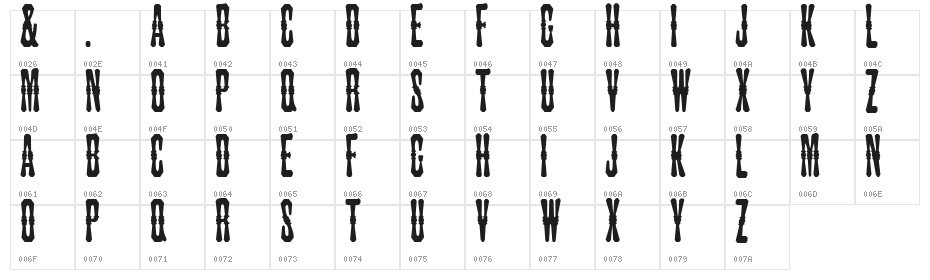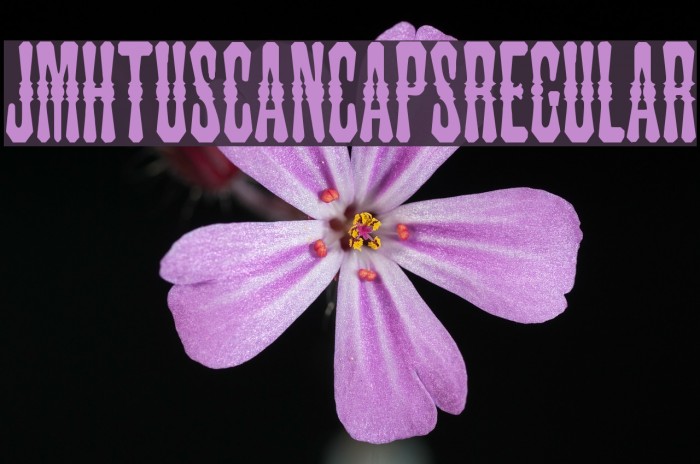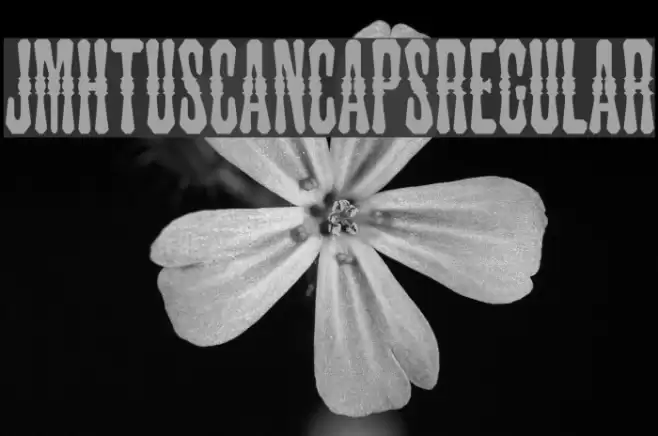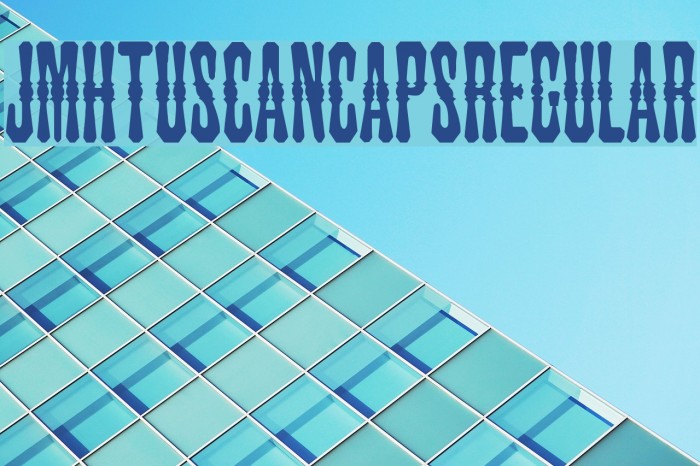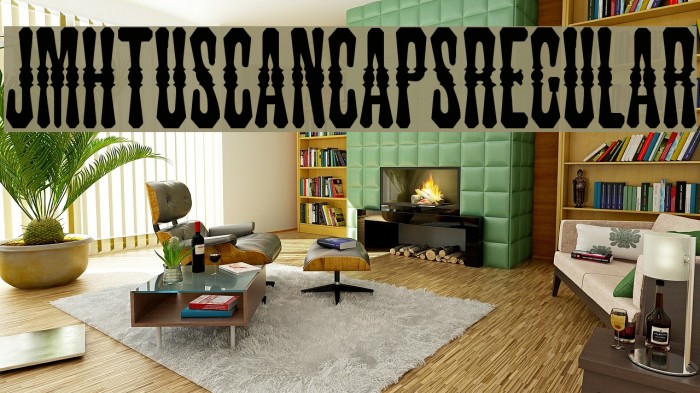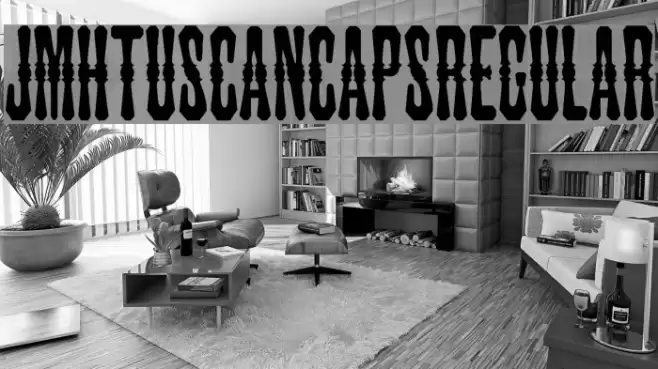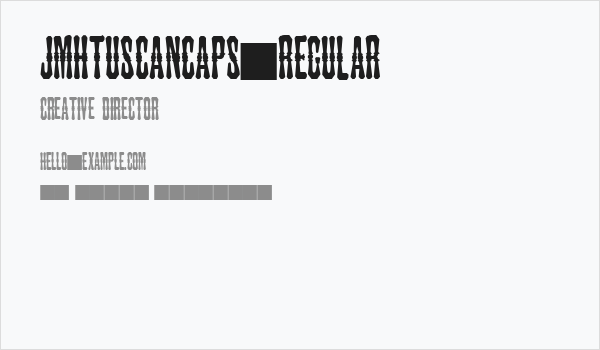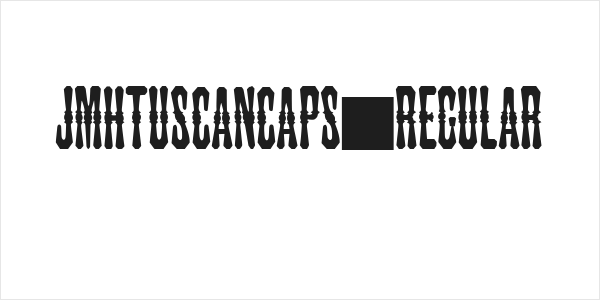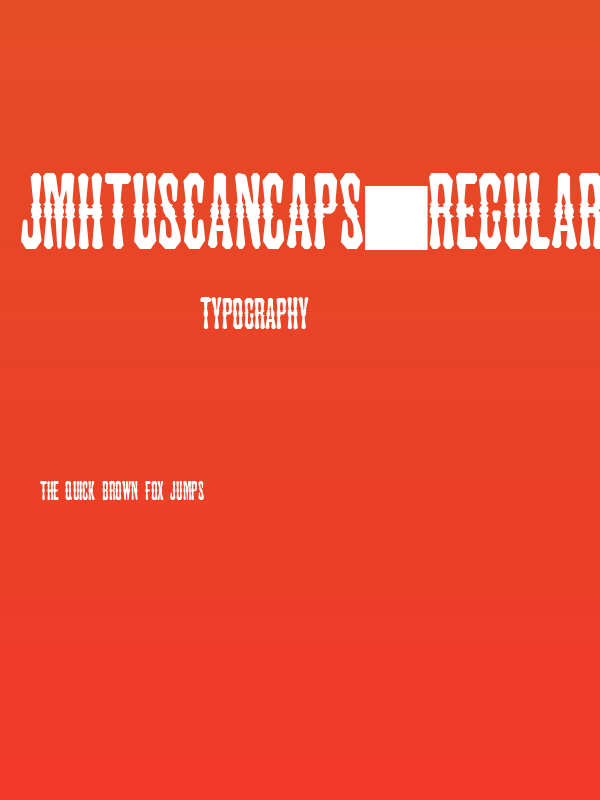
JMHTuscanCAPS-Regular Font
JMHTuscanCAPS-Regular Description
This font features a bold and decorative style with intricate detailing that gives it a unique and eye-catching appearance. The characters are designed with a high level of contrast, showcasing thick vertical strokes and thinner horizontal lines. The ornate elements and flourishes add a vintage and artistic flair, making it suitable for projects that require a touch of elegance and sophistication. The uppercase letters are particularly prominent, with a strong presence that commands attention. The overall design is reminiscent of traditional Western or Victorian typefaces, making it ideal for themed designs.
| Proposed Projects | Ideal for posters, signage, branding, and any project requiring a vintage or Western theme. |